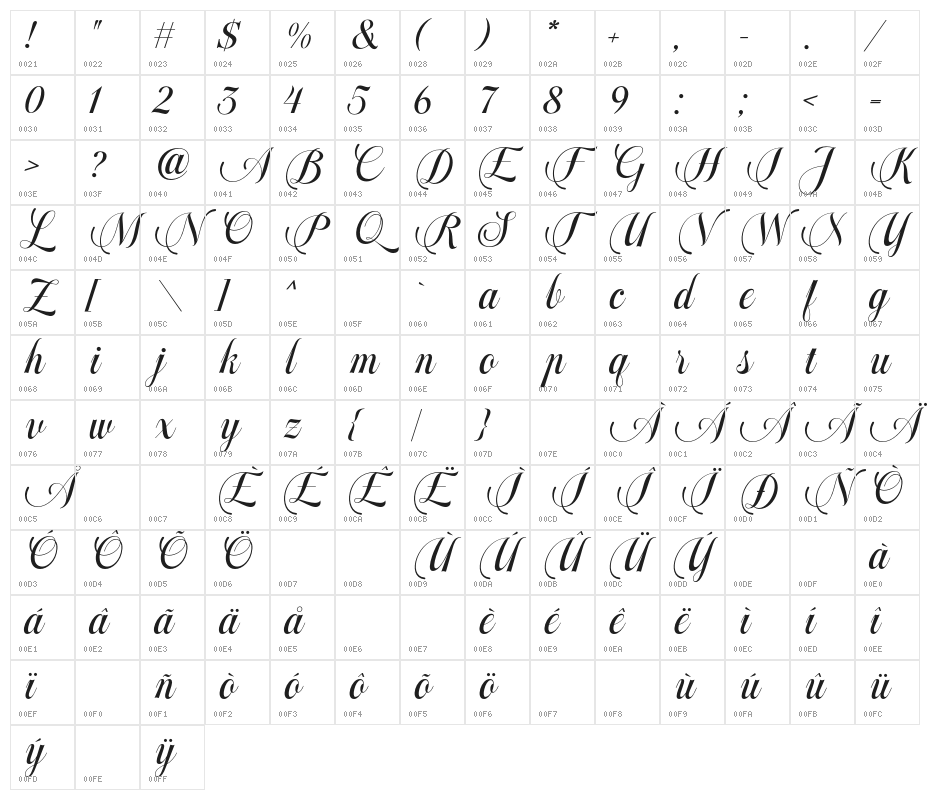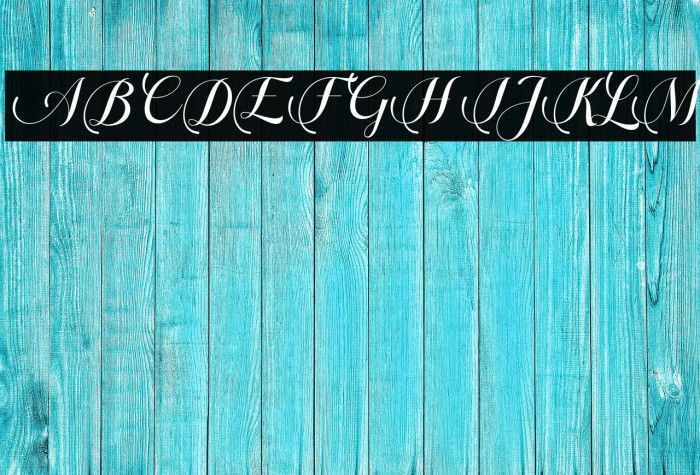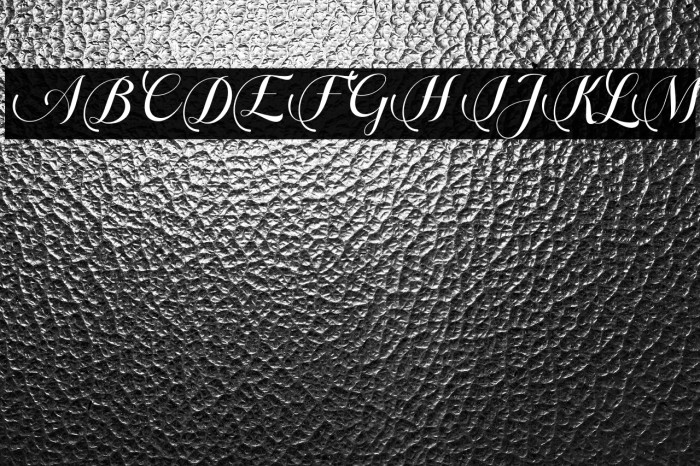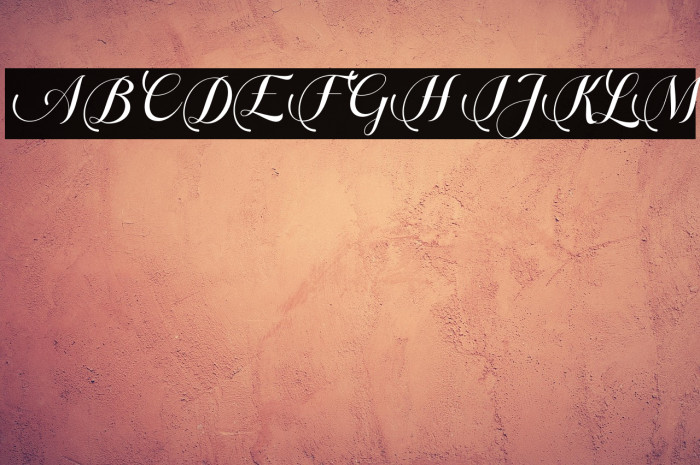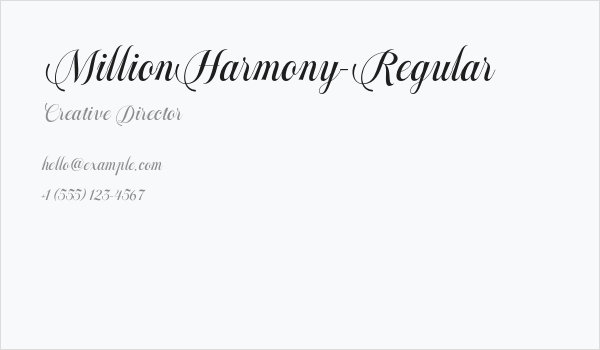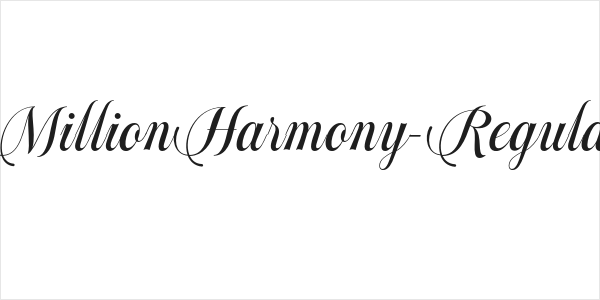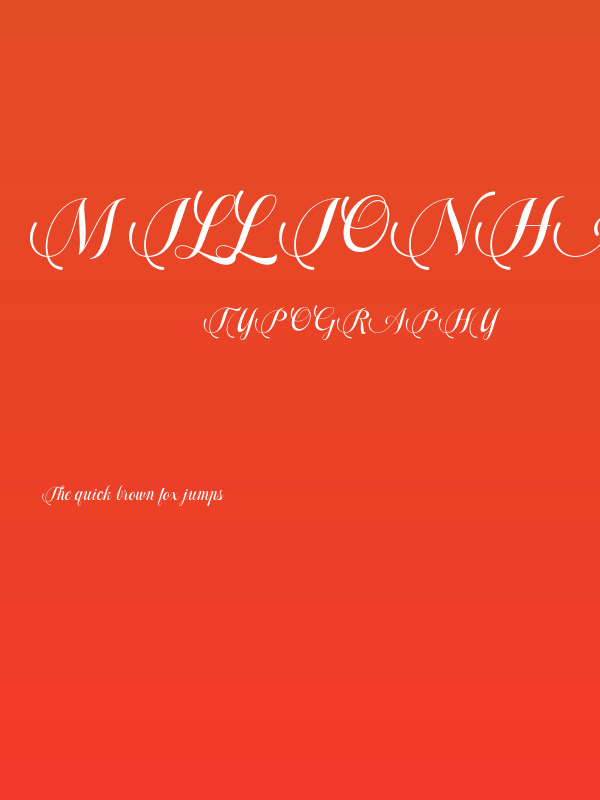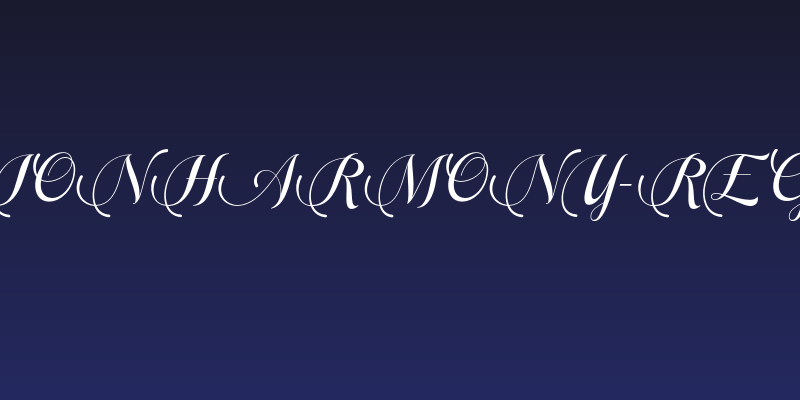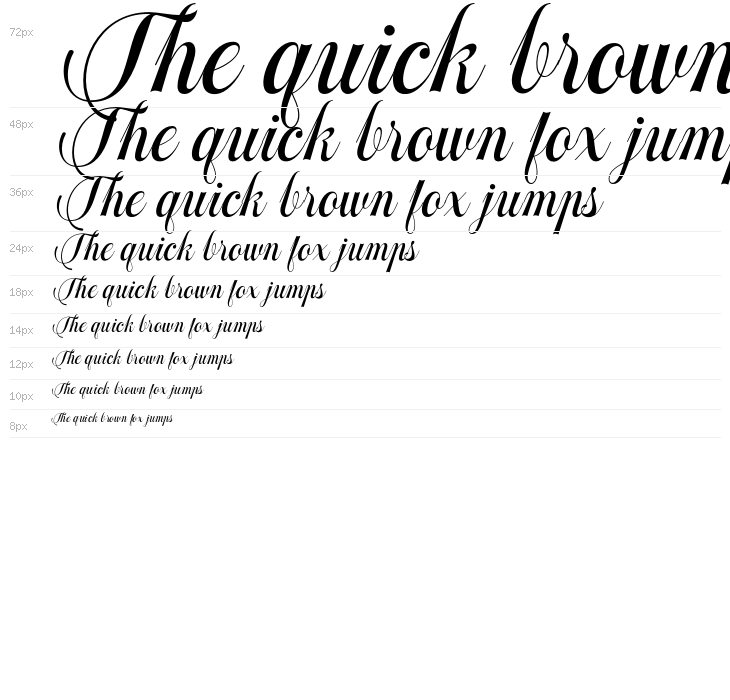
MillionHarmony-Regular Font
MillionHarmony-Regular Description
This elegant script font features a flowing, cursive style with intricate loops and swashes, giving it a sophisticated and graceful appearance. The uppercase letters are particularly ornate, with flourishes that extend beyond the baseline and cap height, adding a touch of luxury and refinement. The lowercase letters maintain a consistent slant, enhancing the fluidity of the text. The numerals are stylish and complement the overall aesthetic, while the special characters are designed with similar attention to detail. This font is perfect for creating a sense of elegance and class in any design project.
Overall StyleElegant
Use CaseLogos, Invitations, Branding
Proposed ProjectsIdeal for wedding invitations, luxury branding, elegant signage, and high-end product packaging.